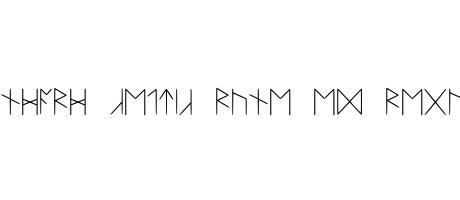
Rune
By Tydi
Standard Celtic Rune Ex Regular: A mystical script, its runes like ancient whispers etched in stone. Each character, a simple yet evocative symbol, evokes the power and mystery of Celtic lore. The clean lines create a timeless and elegant feel, hinting at hidden knowledge and forgotten stories. Its simplicity speaks volumes.